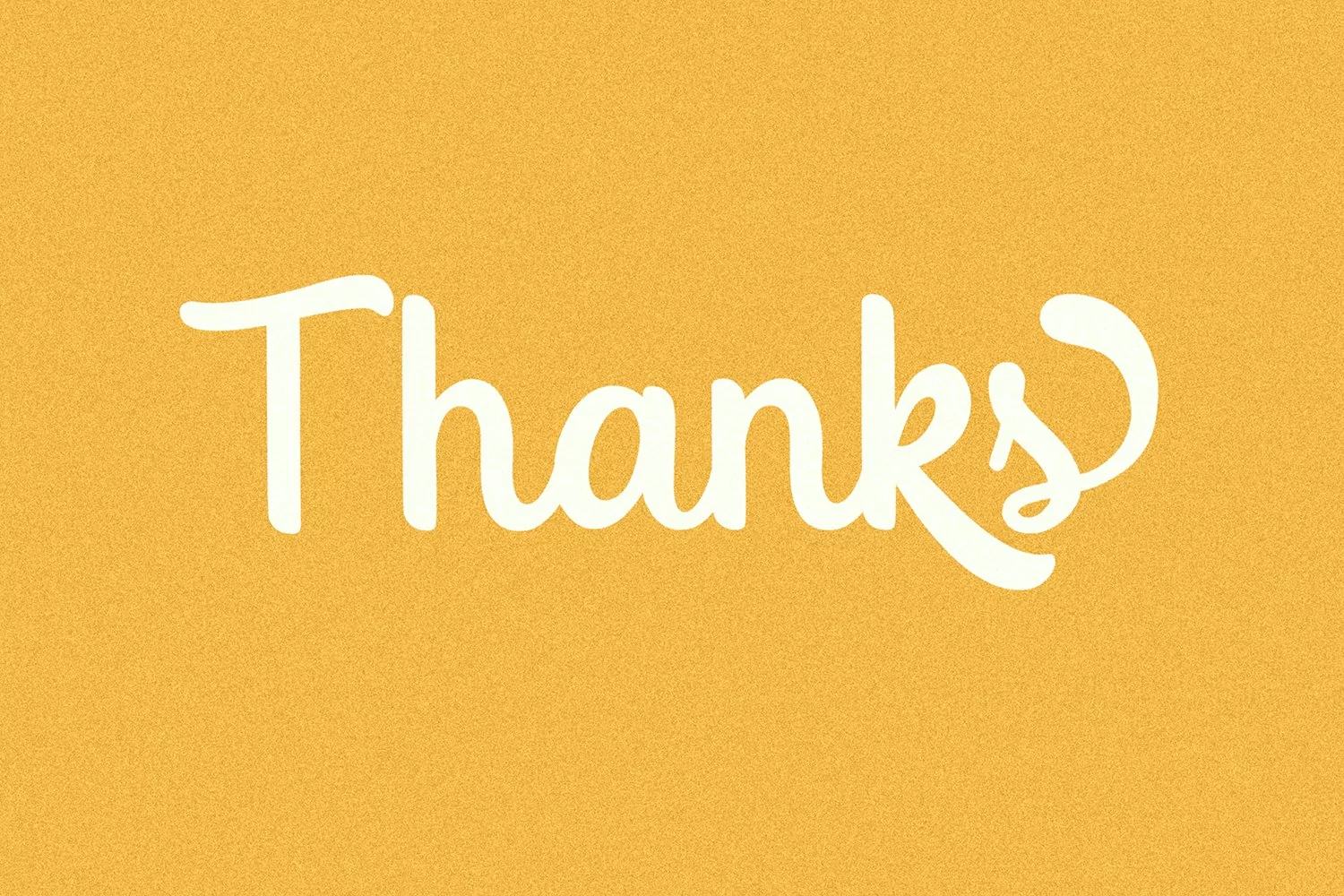
Cristiane Script Font is inspired by classic typography and brings its own unique style to any design project. Its casual charm makes it appear wonderfully down-to-earth, readable and, ultimately, incredibly versatile
Cristiane Script Font is perfect for various purposes such as branding, interior design, book title, printed on a t shirt, packaging, advertising, and many other stuff. Coming with a lot of language support, this font is perfect for you.